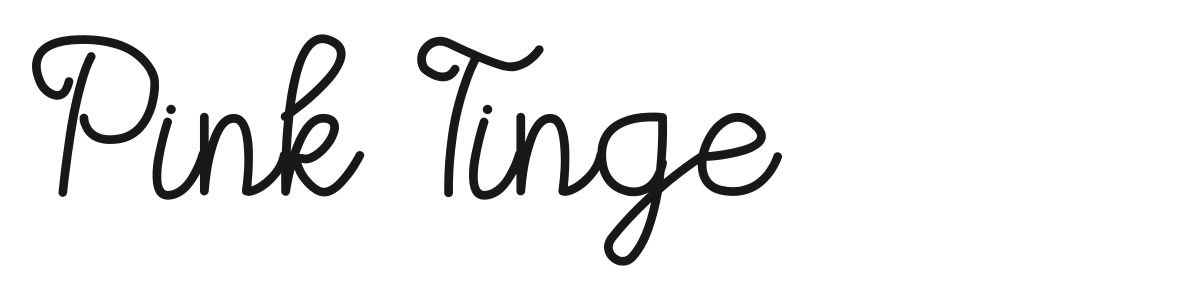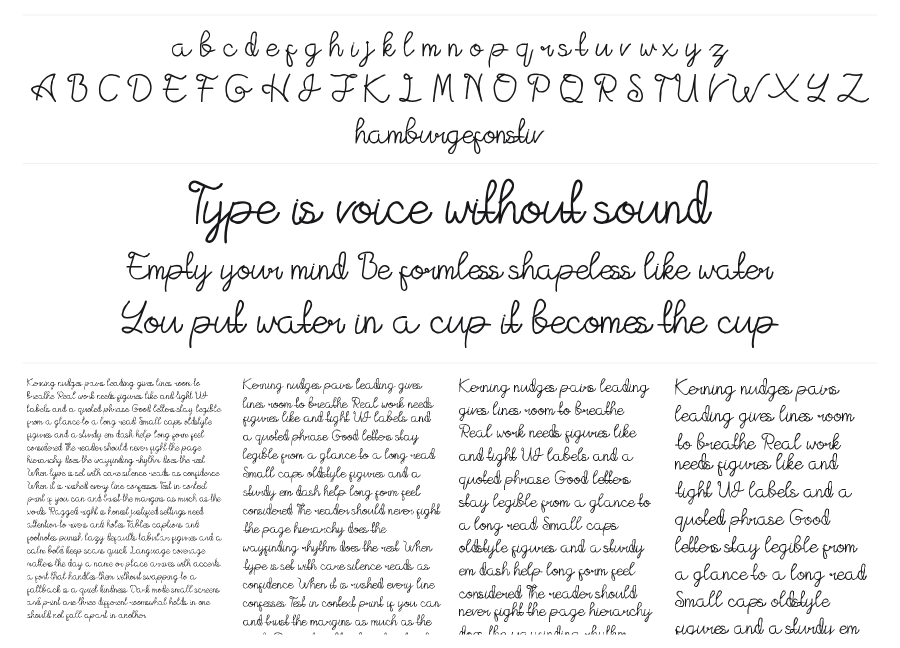
Pink Tinge
Pink Tinge is a flowing connected casual script with consistently thin, monoweight strokes and looping, organic curves. Every letter links to the next in a continuous hand-drawn rhythm that feels relaxed and personal. It suits branding, packaging, and display work where a light, friendly handwritten touch is needed.